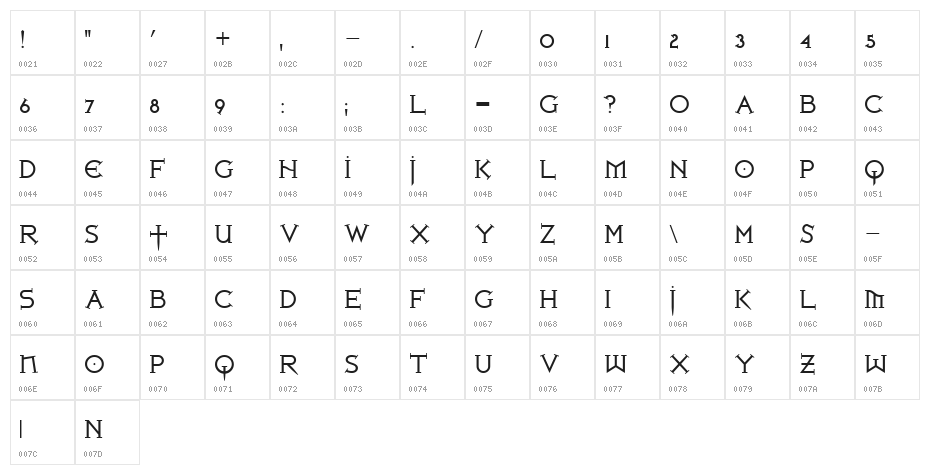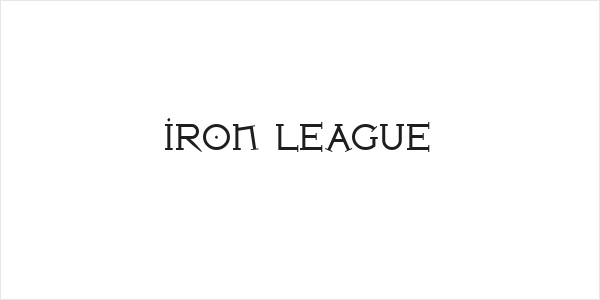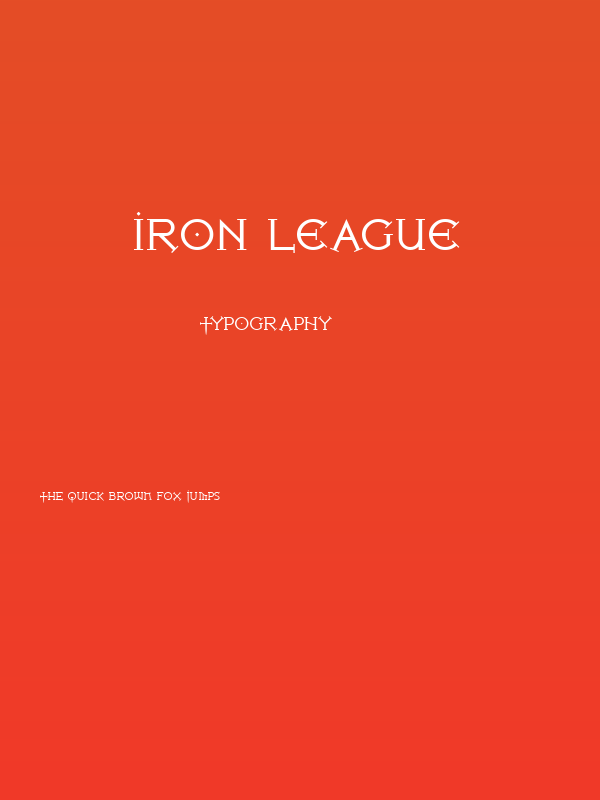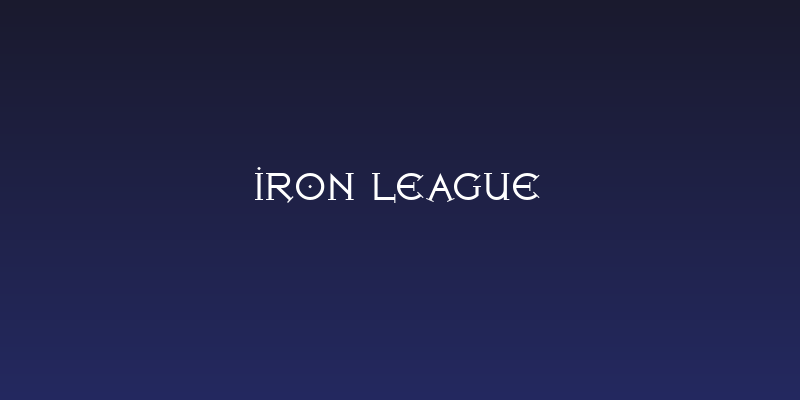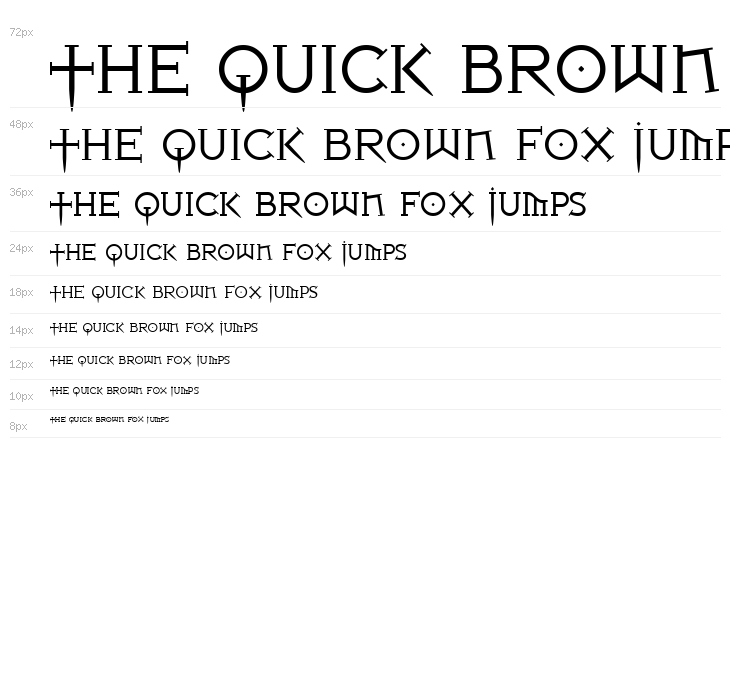
Iron League Font
This font features a bold and striking design with sharp, angular elements that give it a modern and industrial feel. The uppercase letters are particularly distinctive, with unique geometric shapes and pointed serifs that create a sense of movement and energy. The lowercase letters maintain this dynamic style, offering a cohesive look across the typeface. Numbers are designed with similar angular characteristics, ensuring consistency. Special characters are included, maintaining the font's overall aesthetic. This font is ideal for projects that require a strong, impactful presence.
Proposed ProjectsIdeal for branding, posters, video game titles, and any project needing a strong, modern look.